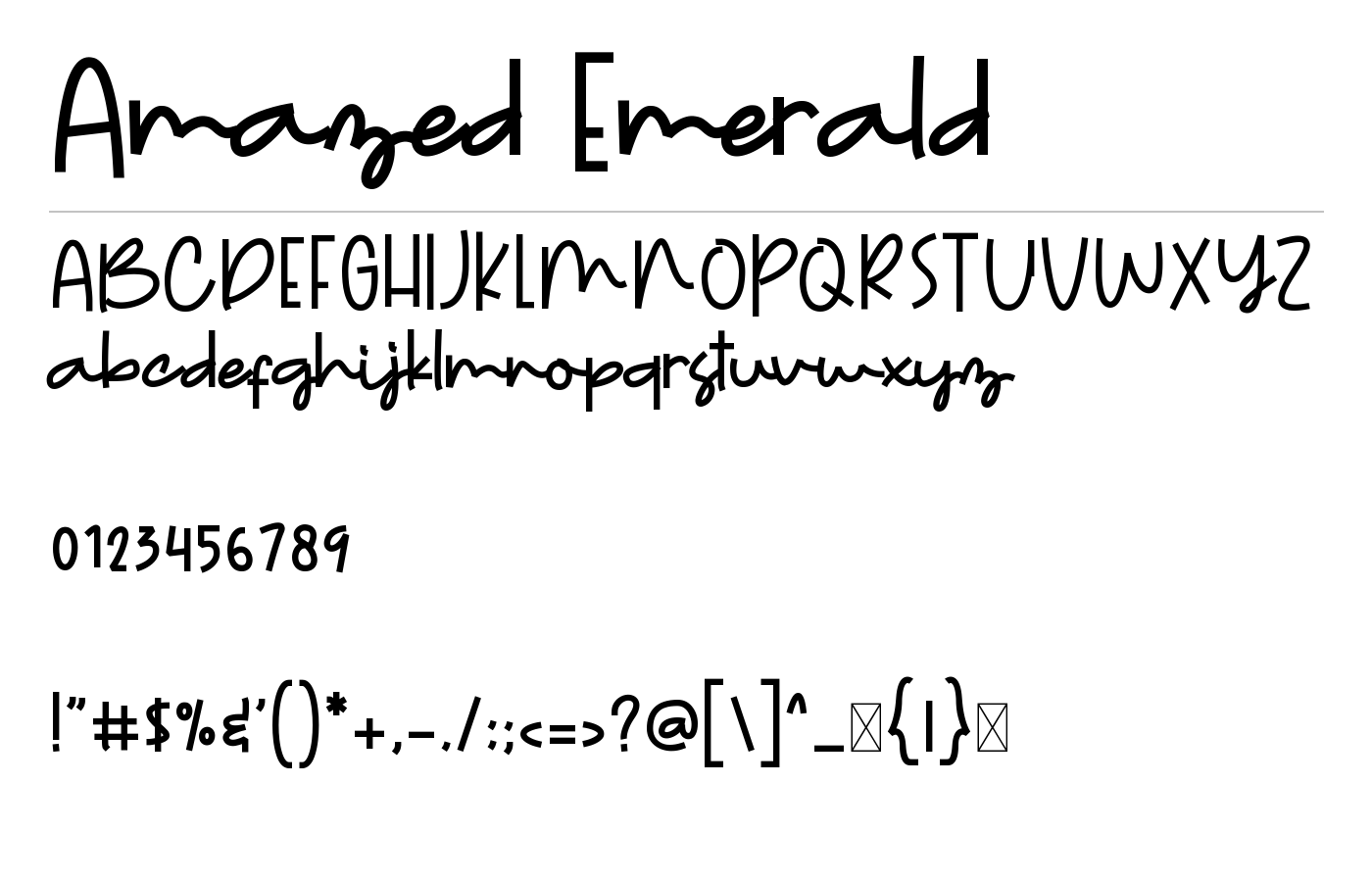
Amazed Emerald is a casual, handwritten sans-serif font with a playful and friendly vibe. It features a tall x-height, light weight, and slightly irregular letterforms that mimic natural handwriting, making it ideal for informal, creative, or personal projects. This font works well for greeting cards, children’s materials, branding with a personal touch, and any design seeking a warm, approachable feel.
Amazed Emerald Font
About Amazed Emerald Font
| Font family | Amazed Emerald Font |